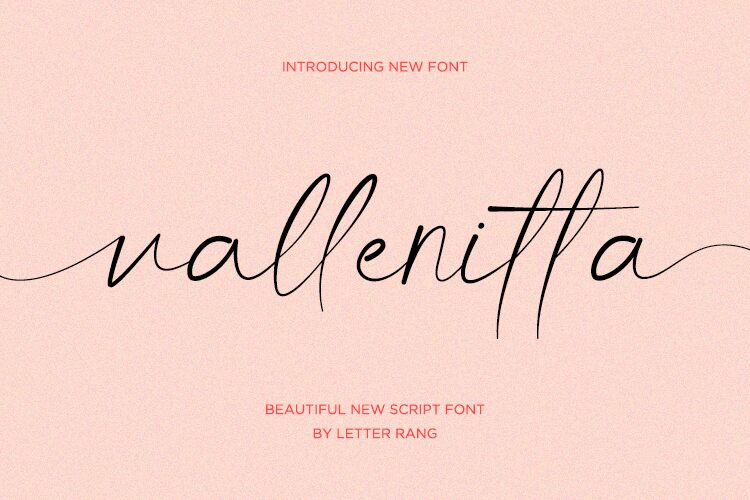
Vallenitta
Vallenitta is a stunning extra-light font designed by Rangga Putra Budi Pratama. Its beautiful handwritten style makes it perfect for projects that require elegance and sophistication. Whether you're designing wedding invitations, creating social media graphics, or crafting a logo for a high-end brand, Vallenitta is the ideal choice to add a touch of glamour to your work. This font's delicate strokes and flowing curves give it an organic feel that will make your designs stand out from the crowd. Try Vallenitta today and elevate your creations to new heights!